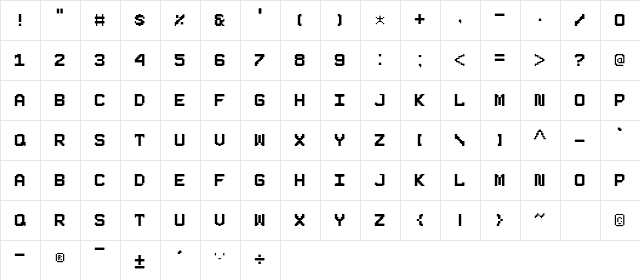
Pixeboy Regular
Design Context for Pixeboy Typeface
Pixeboy is a composed and adaptable typeface that performs quietly and consistently across a wide range of design contexts.